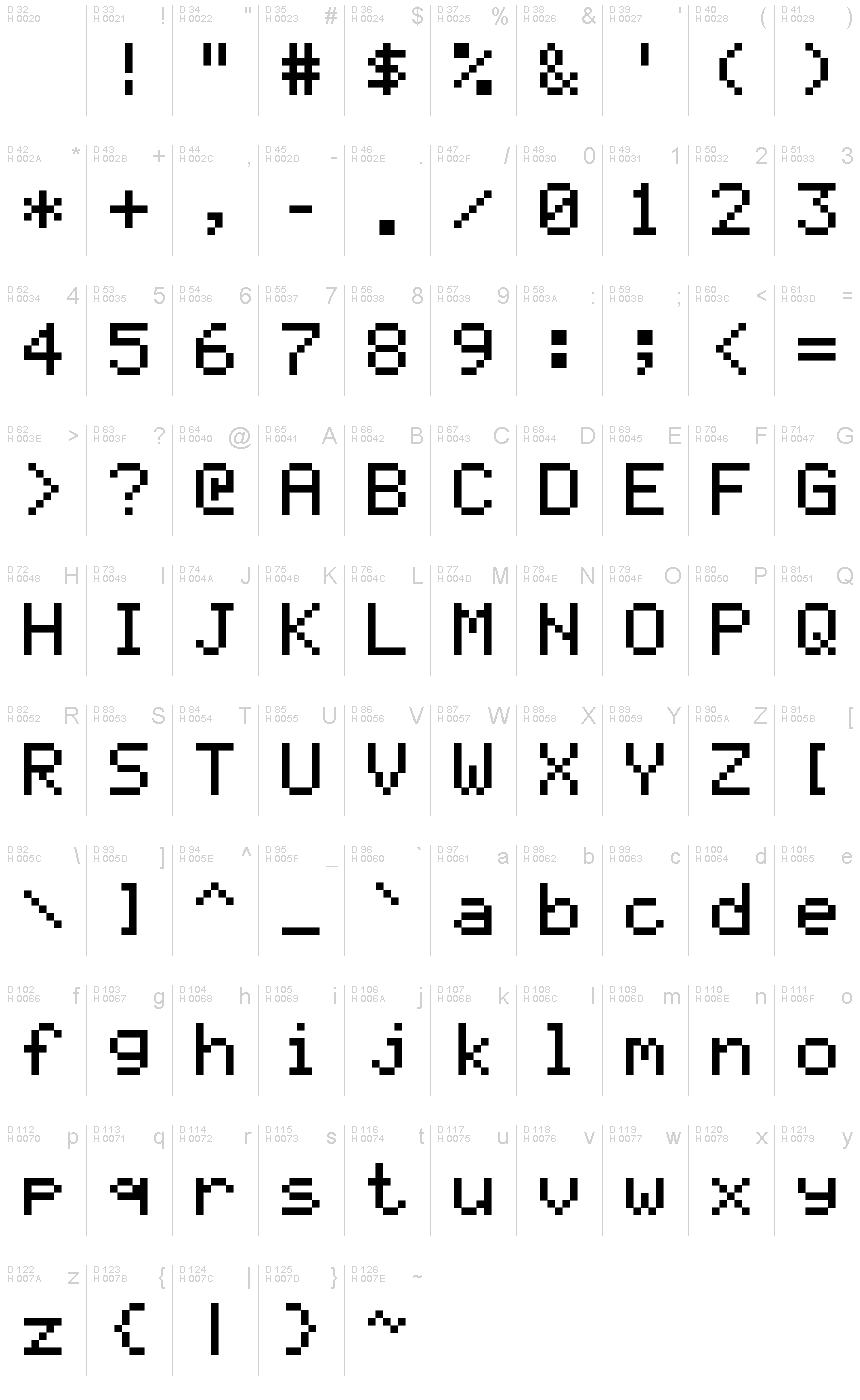
TI-83 Plus Large Regular
An exact replica of the large font used in the TI-83 Plus and the TI-84 Plus series of graphing calculators. Each character has been mapped to an equivalent Unicode code point in the BMP.
Each character is drawn on a 5*7 grid. For better spacing, characters have been expanded one pixel on the right, empty. For multiple lines, all characters have been moved up one pixel from the baseline.
Designer description: An exact replica of the font used in the TI-83 and TI-84 series of graphing calculators.
Version 2.0 (May 26, 2019) - Added ¥ (yen sign) and completed the Katakana block. Also tweaked a few characters.